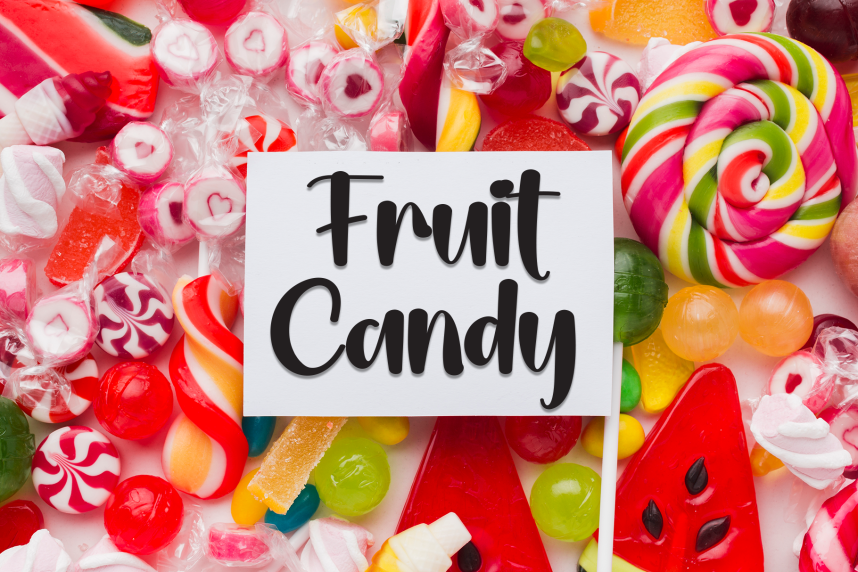
Hello Mama – Cute And Fun Font
Hello Mama – Cute And Fun Font is a sweet and friendly handwritten display font. Cute and fun, this font is ideal for writing wedding invitations, cards, or any other design that might need a playful touch!